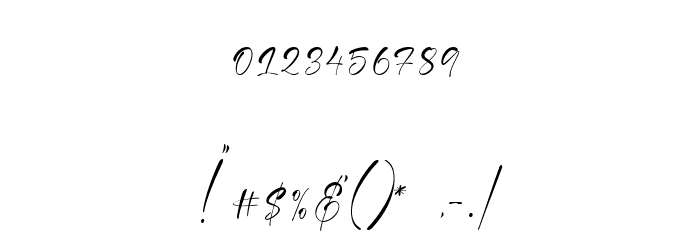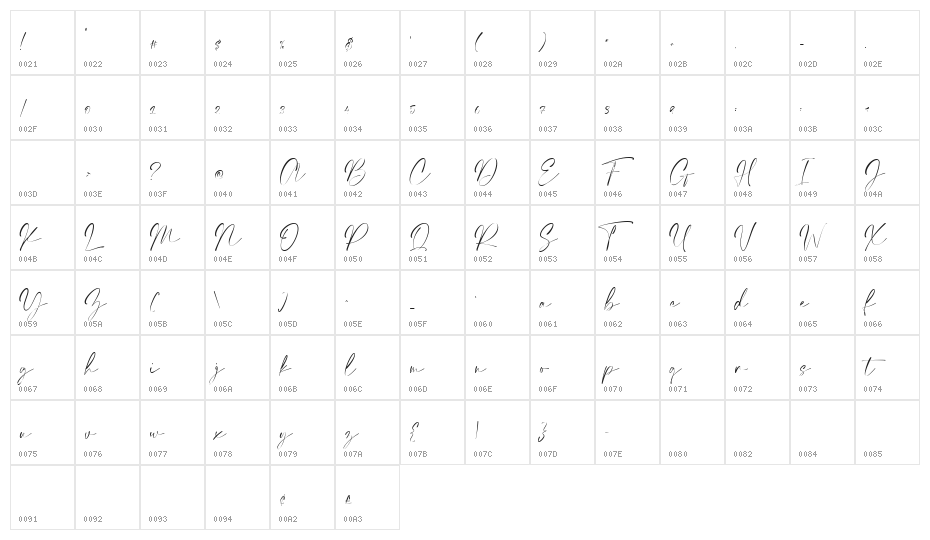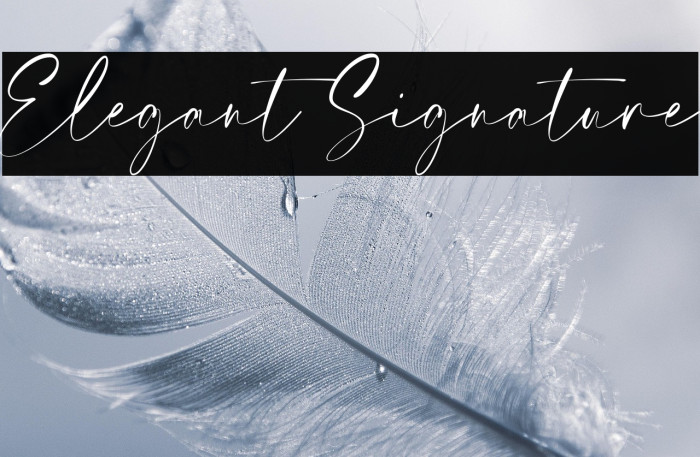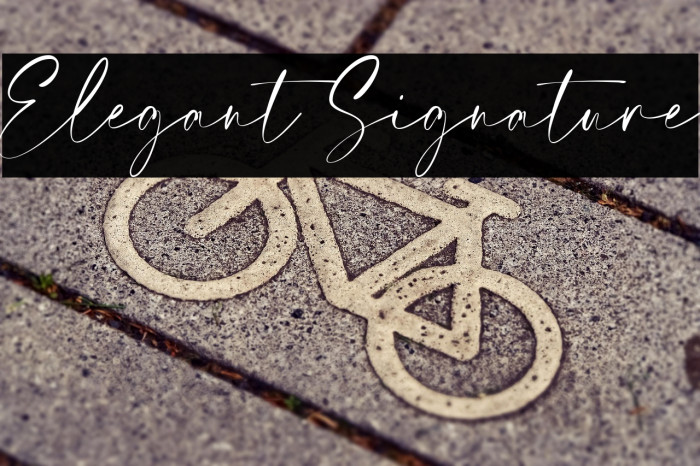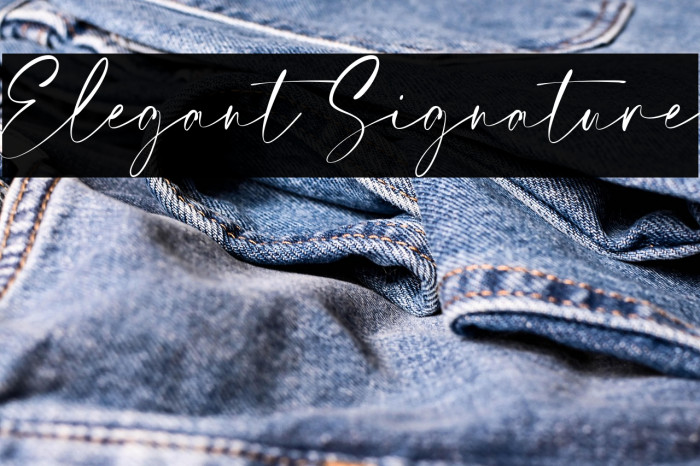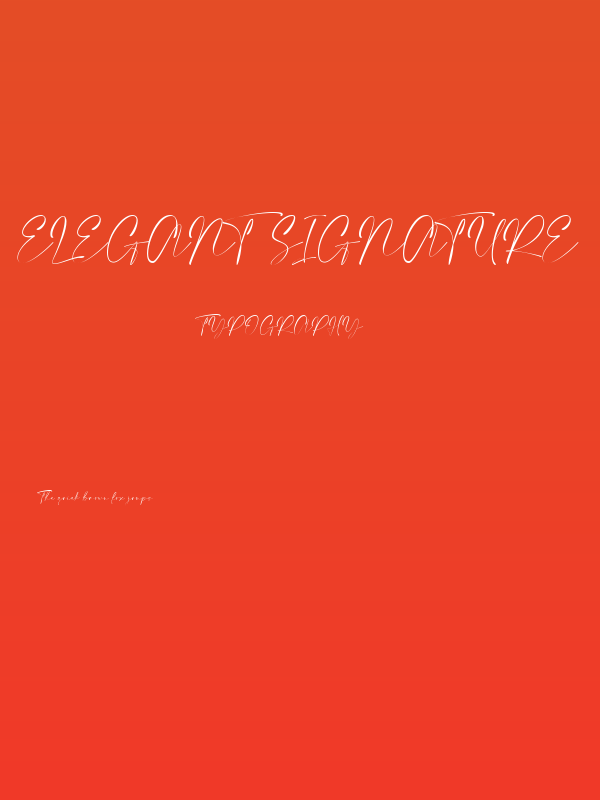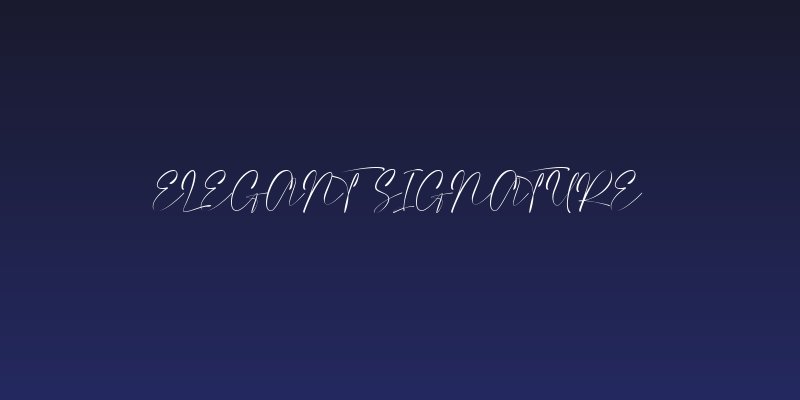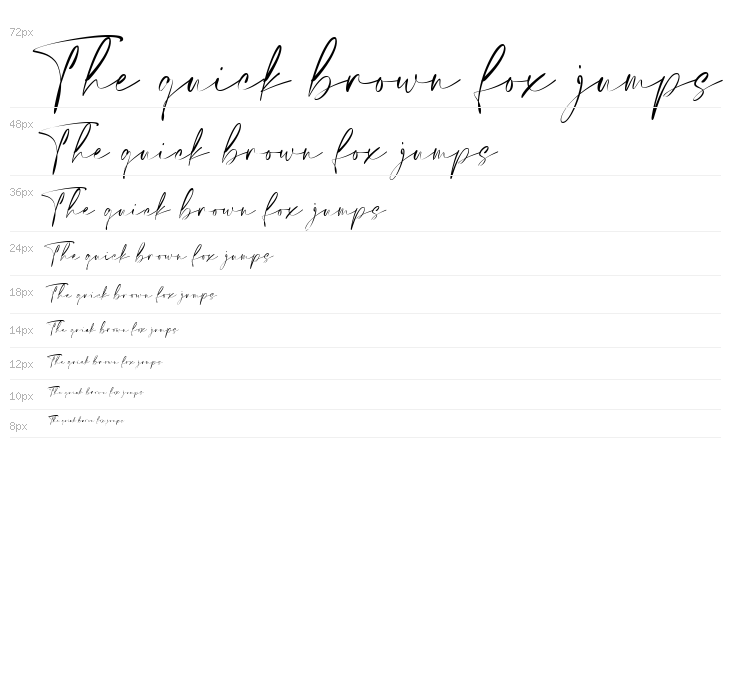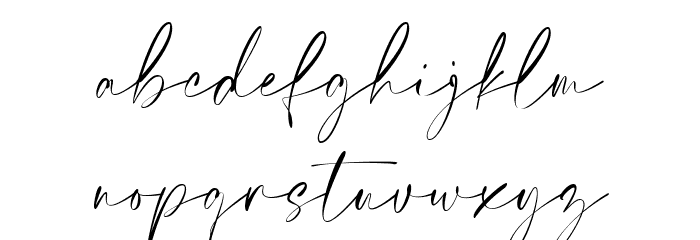
Elegant Signature Font
Elegant Signature Description
This font exudes elegance and sophistication with its flowing, cursive script style. The characters are delicately crafted, featuring smooth curves and graceful loops that mimic the fluidity of handwritten calligraphy. The uppercase letters are particularly ornate, with sweeping ascenders and descenders that add a touch of drama and flair. The lowercase letters maintain a consistent style, ensuring readability while preserving the font's artistic appeal. The numbers and special characters are designed to complement the overall aesthetic, making this font versatile for various applications. Its refined appearance makes it ideal for projects that require a personal, elegant touch.